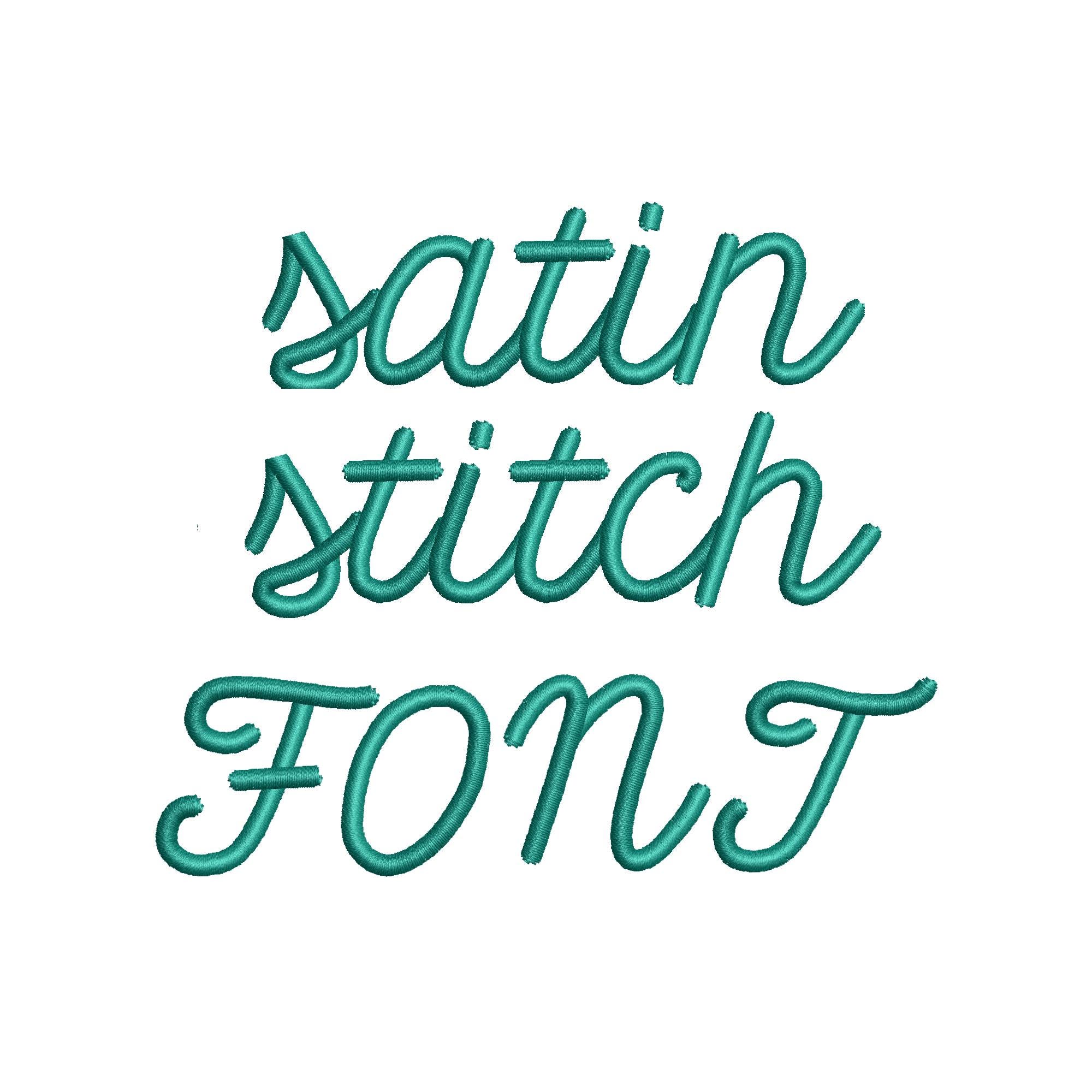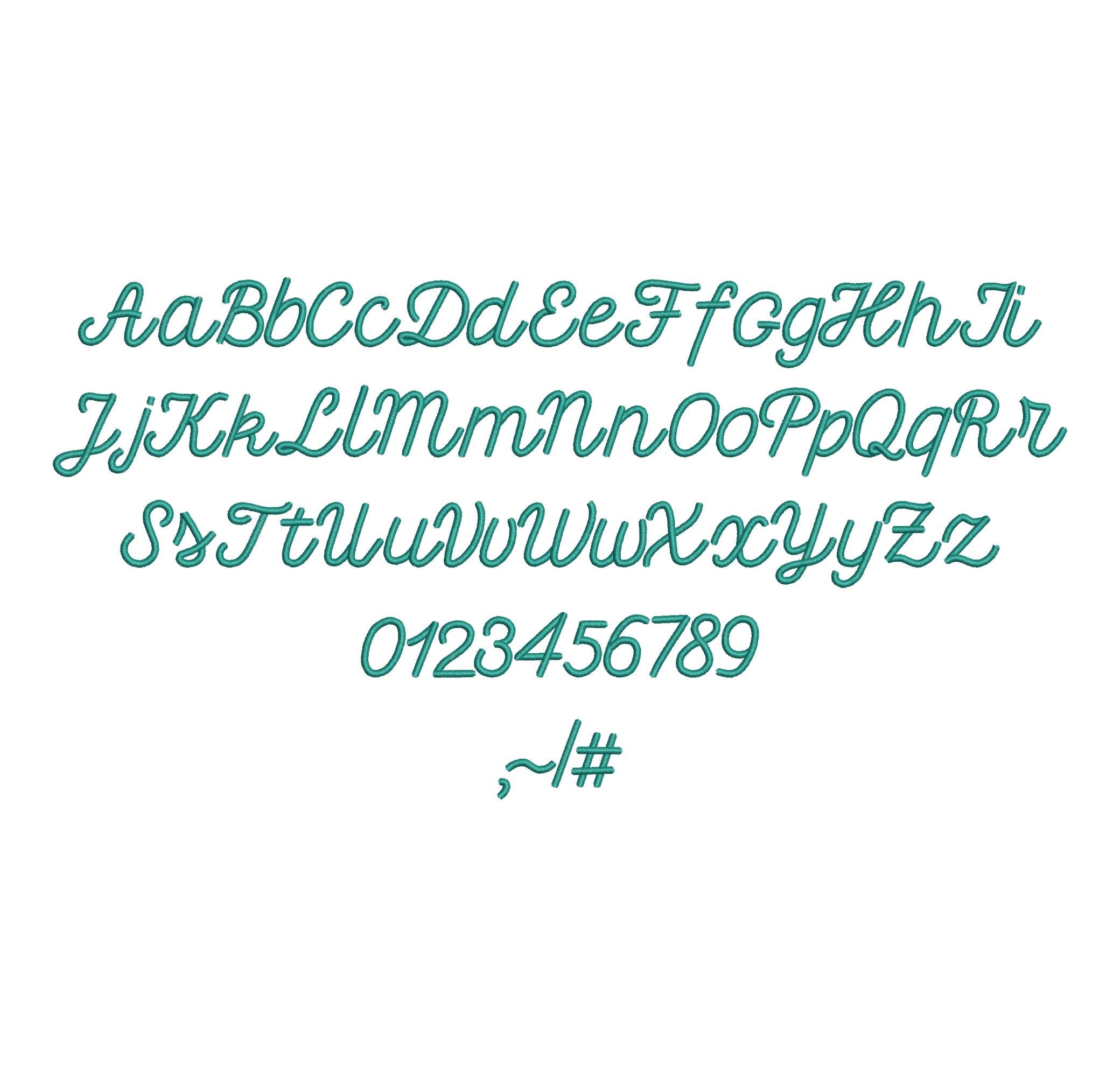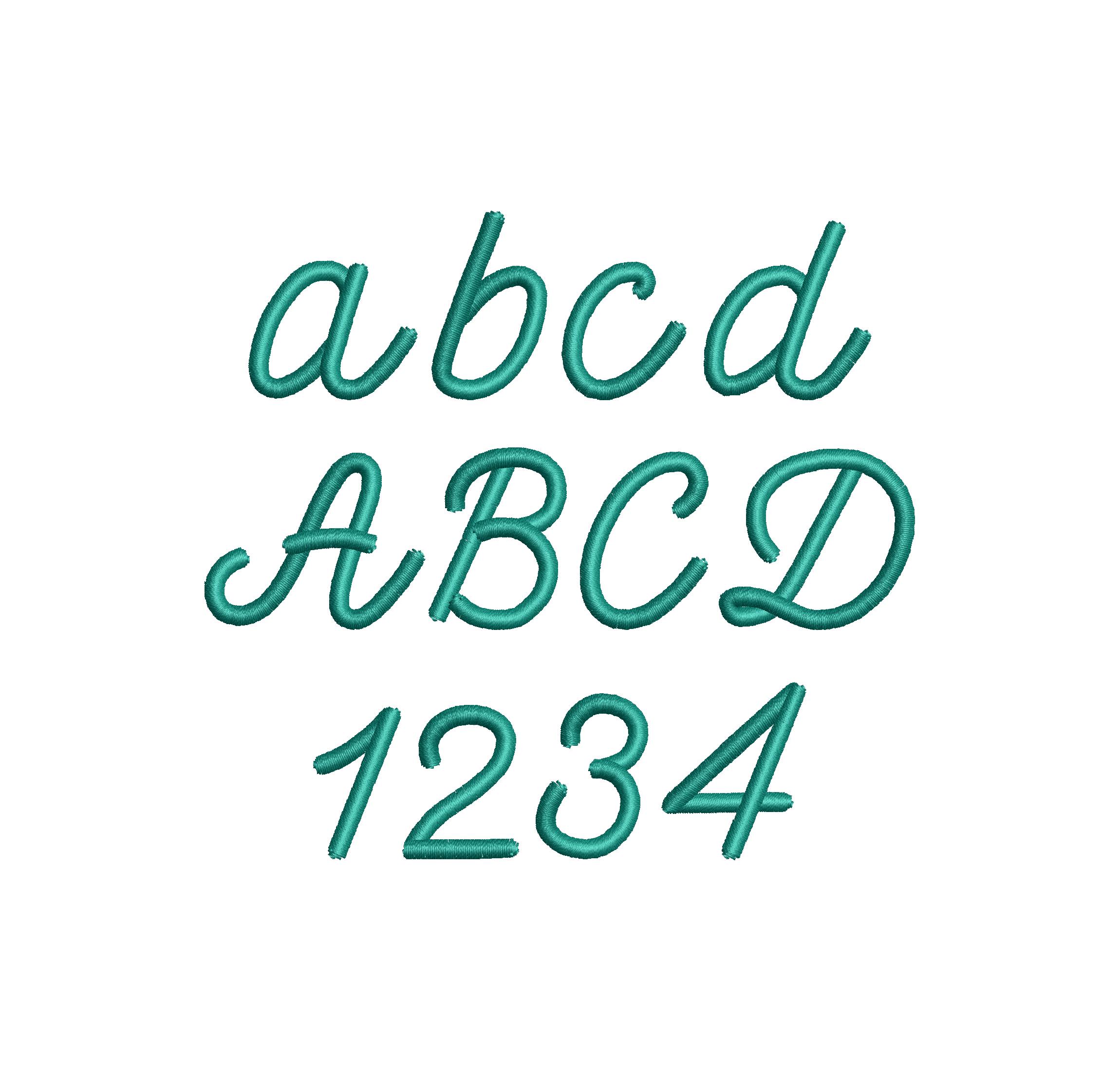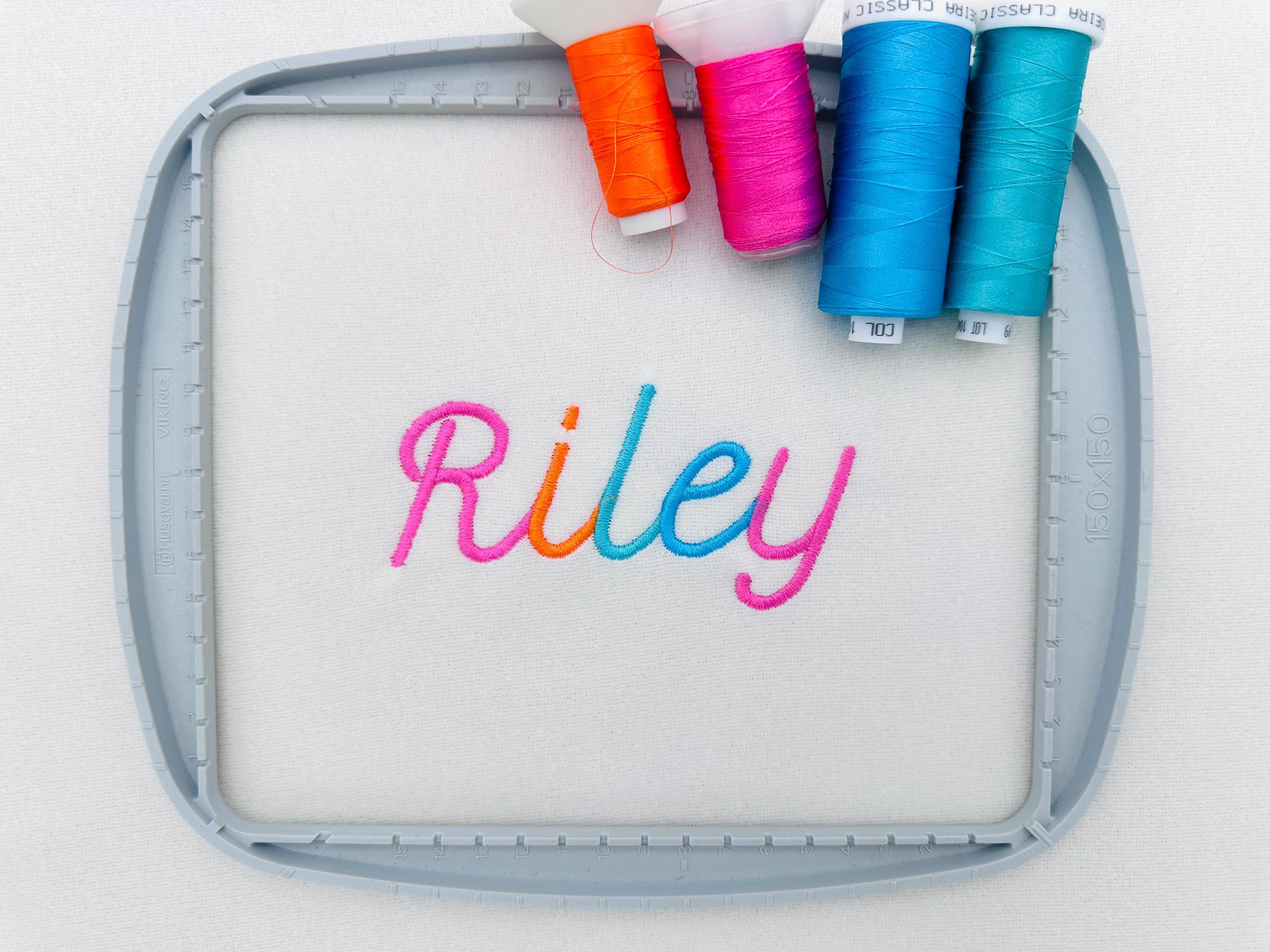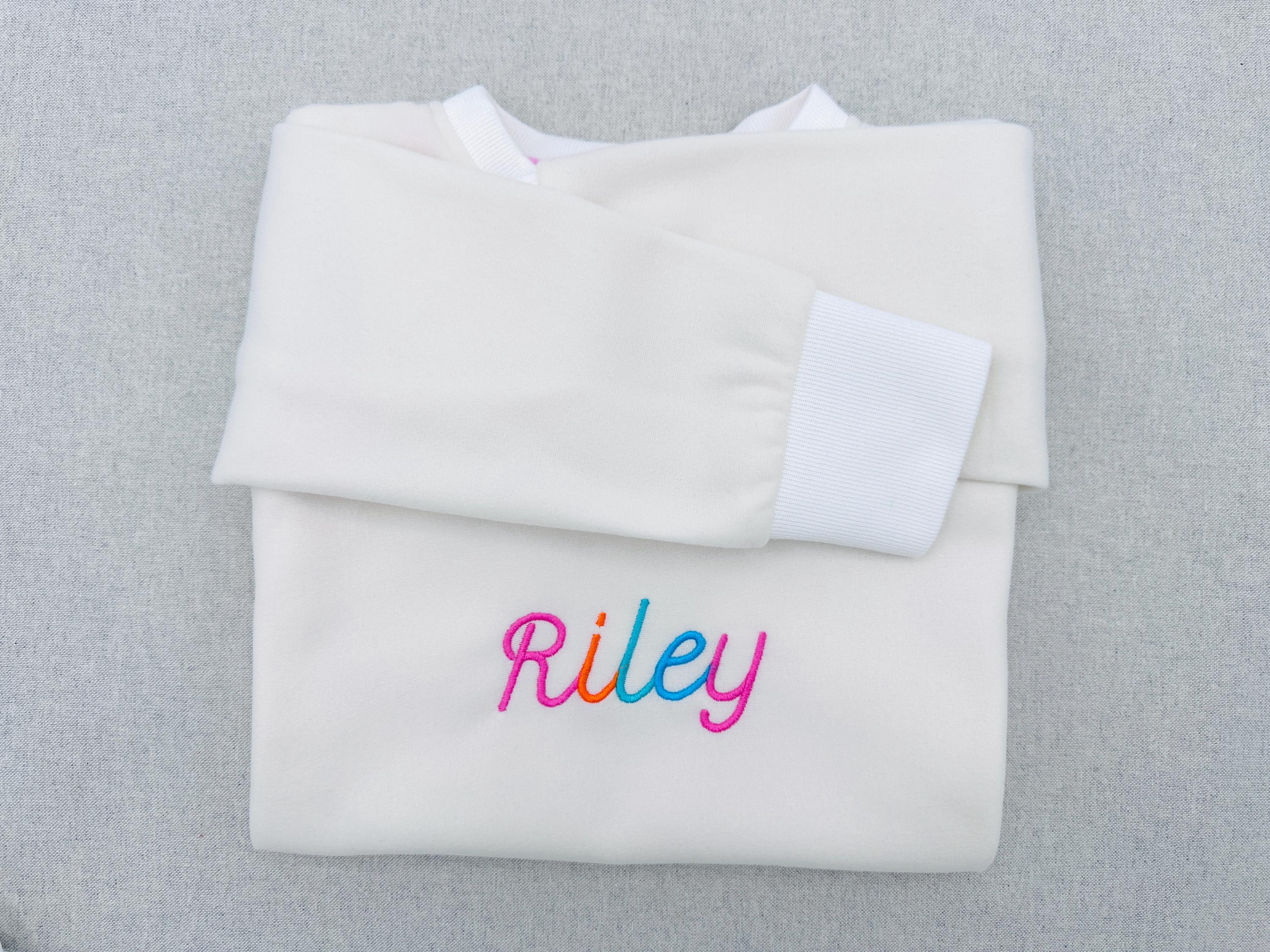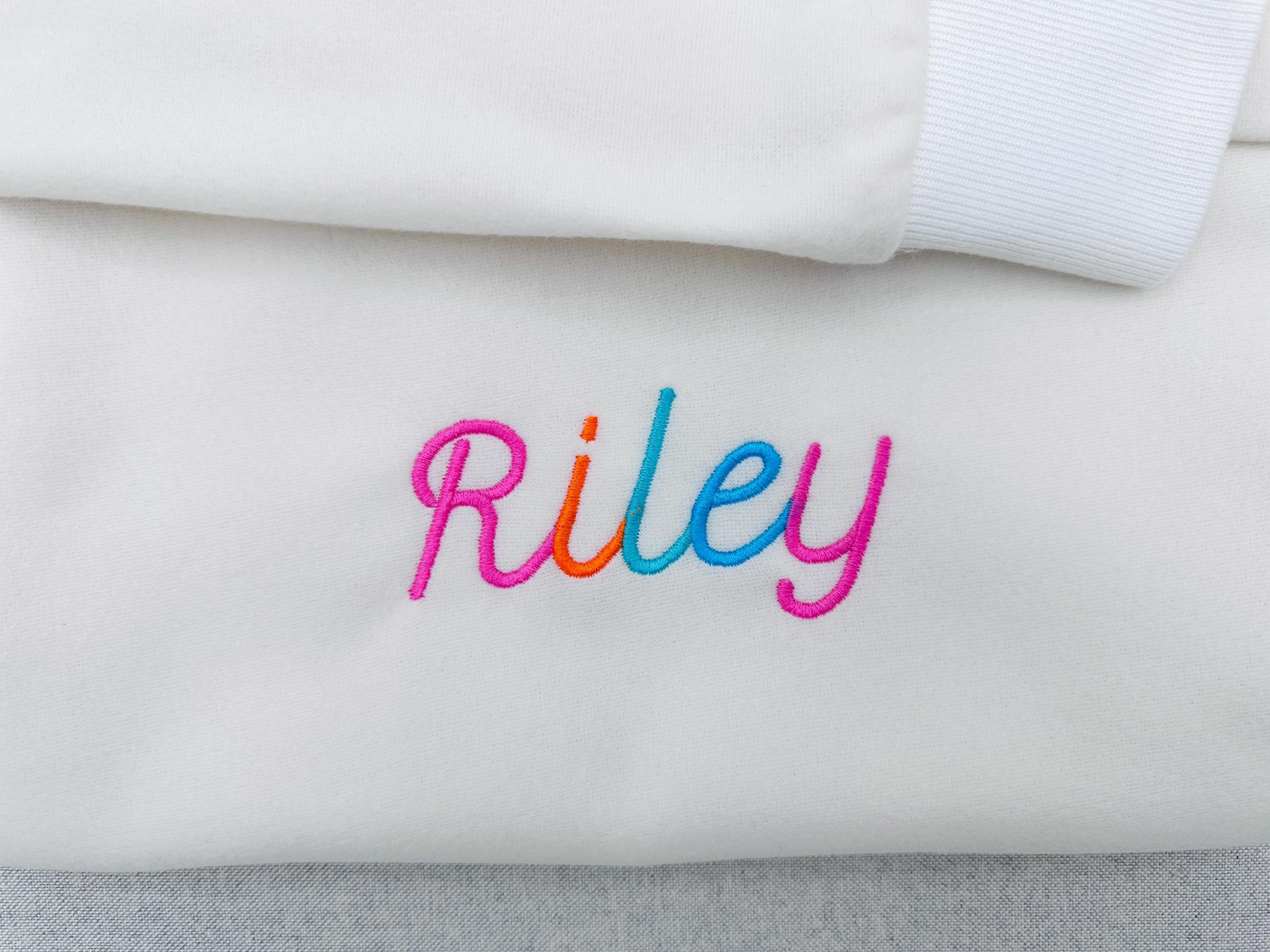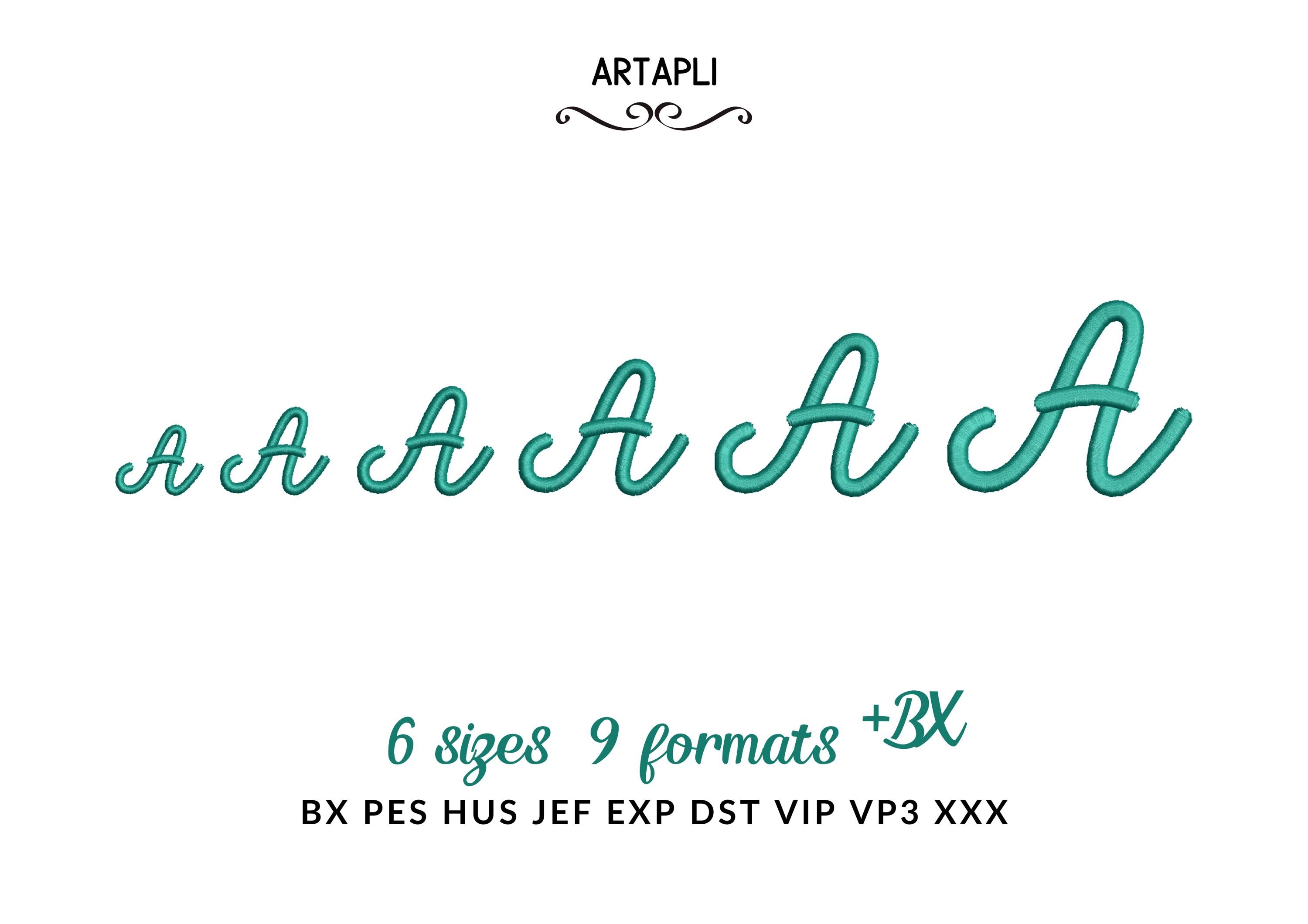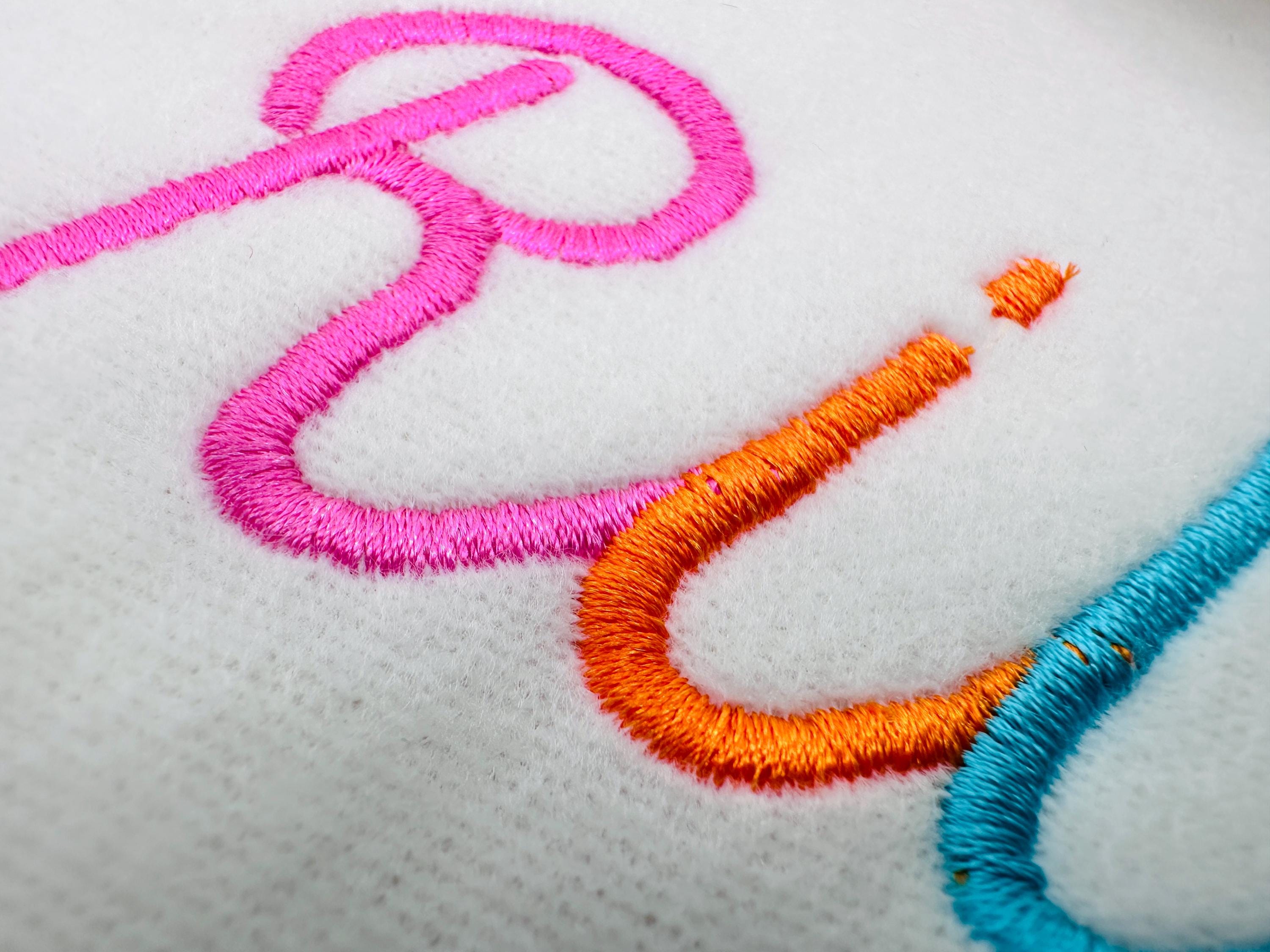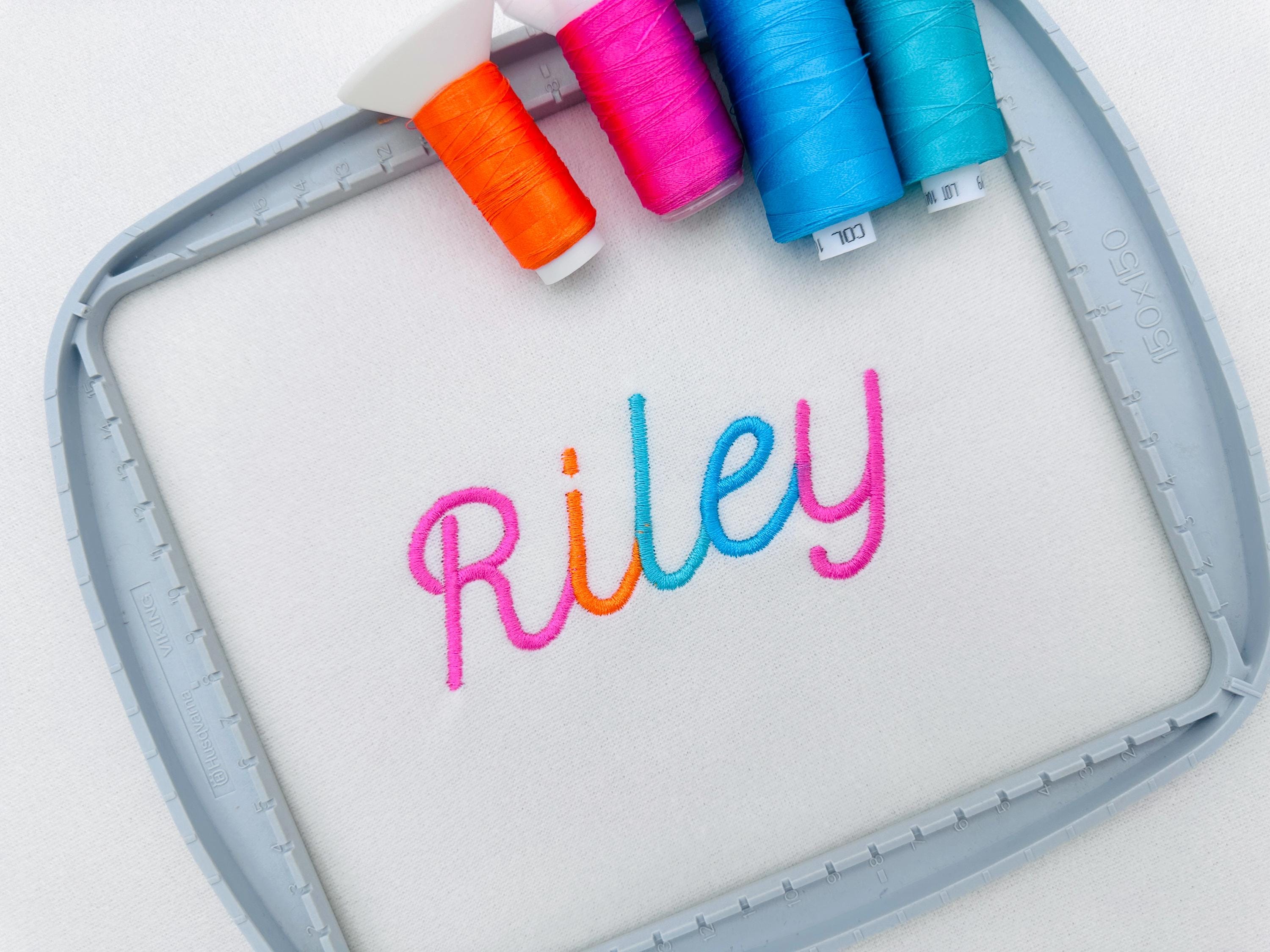
Sweet Satin FONT Alphabet script handwritten letters satin stitch Monogram kids name machine embroidery designs sizes 0.8 up to 2.3 inch and BX included
Whole alphabet Aa-Zz uppercase and lowercase letters, numbers 0-9, and punctuation as shown in the images.